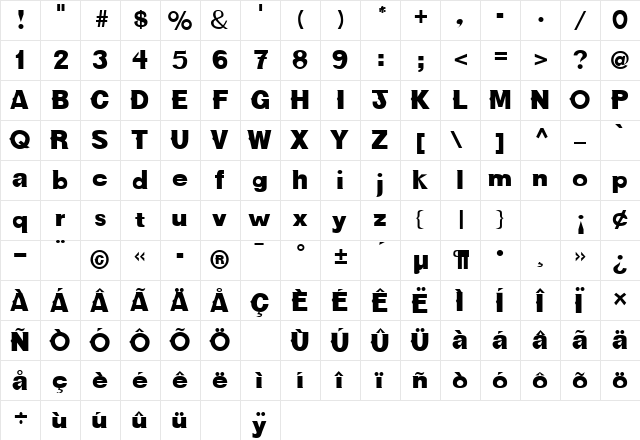
New Bold
Design Context for New Typeface
New offers clean, dependable letterforms without strong stylistic allegiance, making it a practical choice for designers who need flexibility. The heavy weight commands attention and anchors typographic hierarchies.